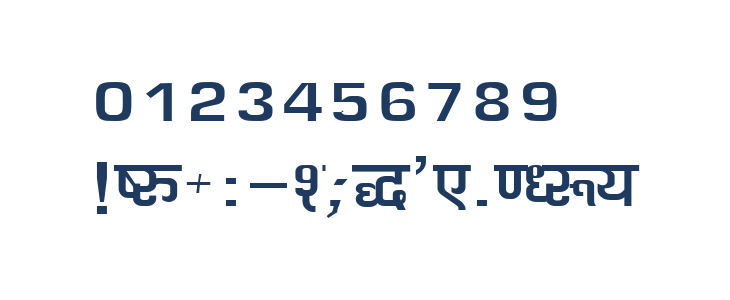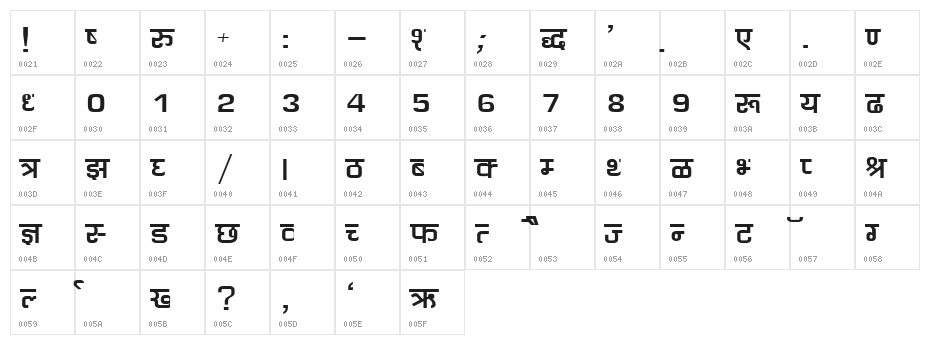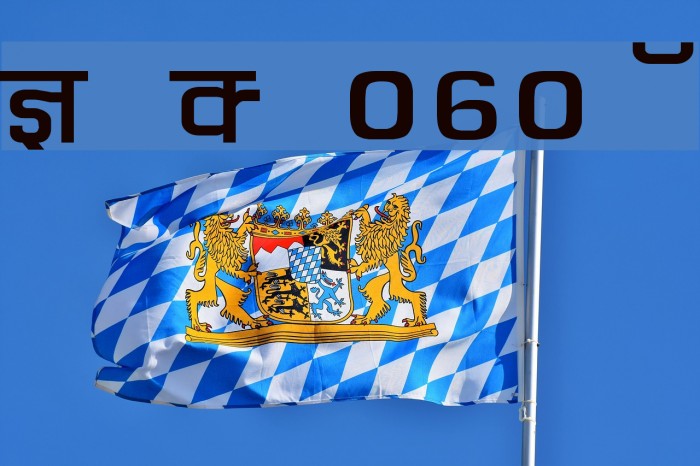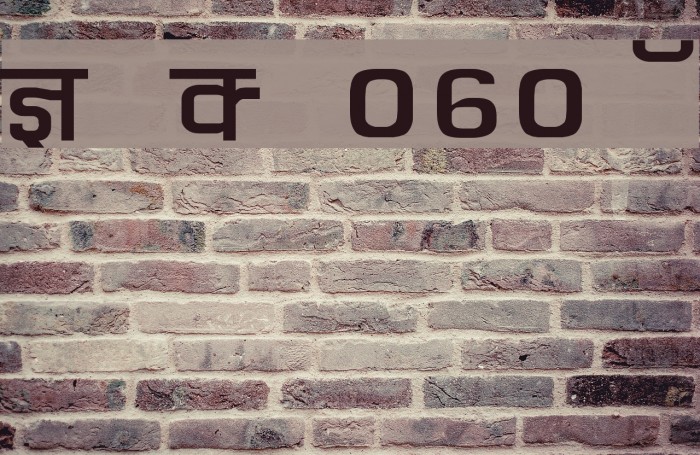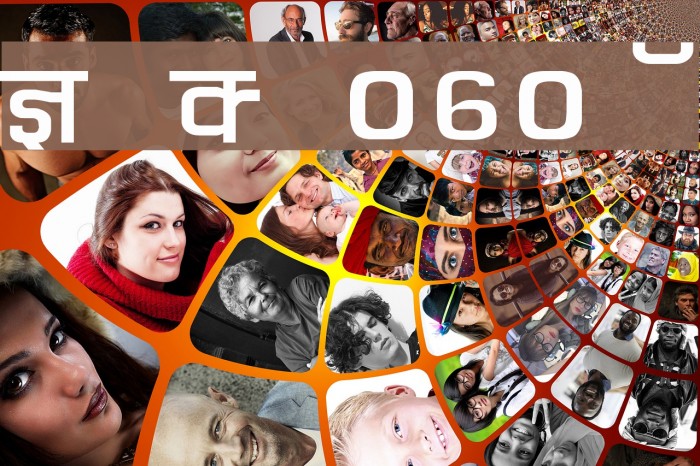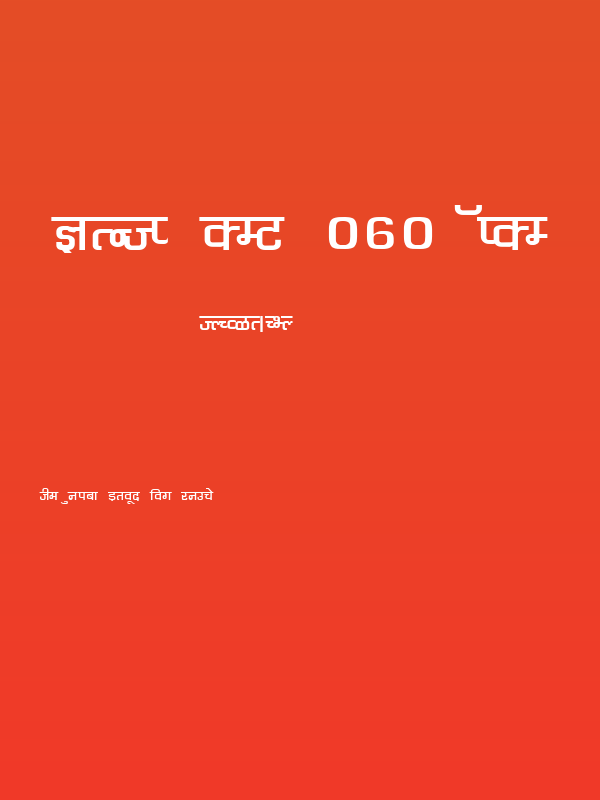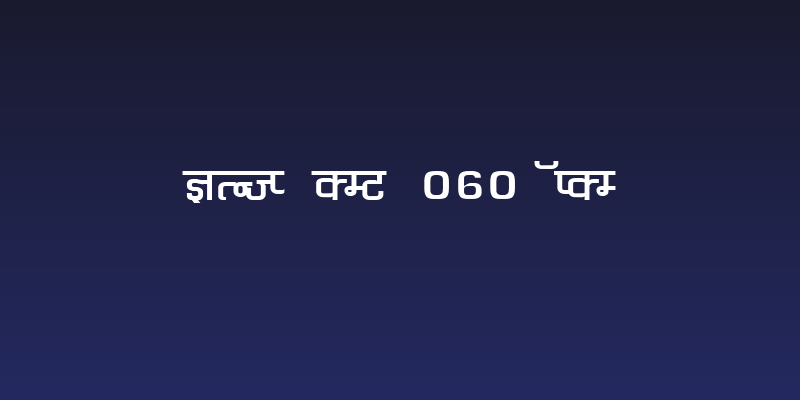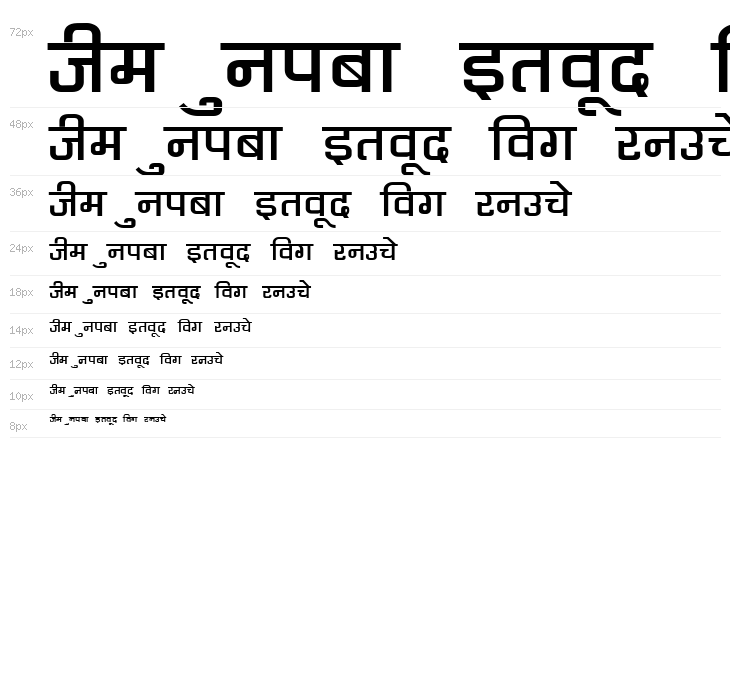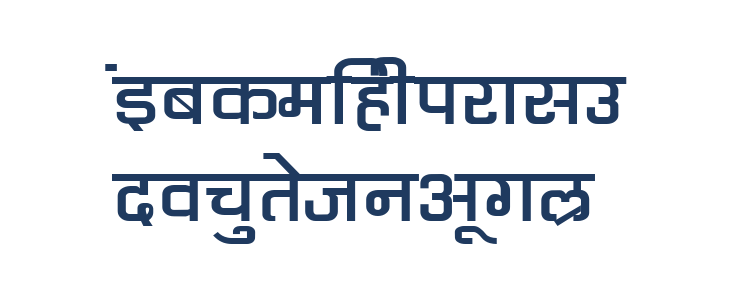
Kruti Dev 060 Wide Font
Kruti Dev 060 Wide Description
This font features a bold and wide design, characterized by its strong, thick strokes and expanded letterforms. The characters have a distinct geometric structure, with consistent line thickness that gives it a uniform appearance. The font includes a full set of Devanagari characters, numerals, and a variety of punctuation marks. Its boldness and width make it highly legible, even at smaller sizes, while the geometric shapes lend a modern and clean aesthetic. The font is particularly suitable for headlines and display purposes, where a strong visual impact is desired.
| Use Case | Headlines, Display text, Signage |
| Proposed Projects | Ideal for use in headlines, posters, signage, and any project requiring a bold and modern Devanagari typeface. |